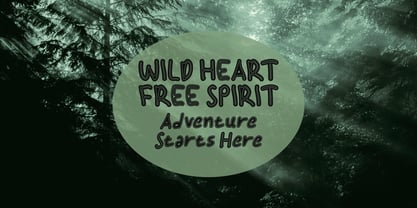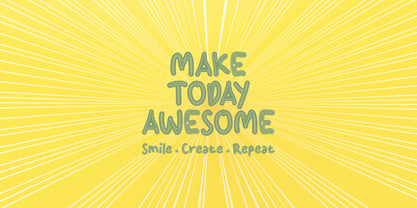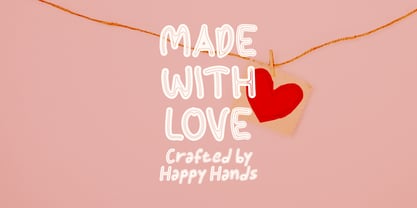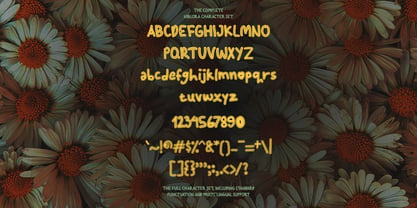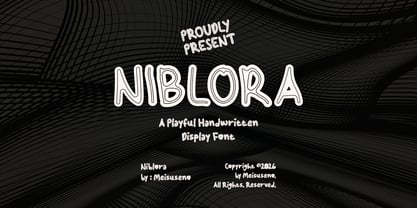
Niblora
by Mei Suseno
The Niblora Font Family was designed by Mei Suseno and published by Mei Suseno. Niblora contains 2 styles and family package options. More about this family
Niblora is a playful hand-drawn display font with bold outlined letterforms and a charming vintage personality. Designed to bring warmth, creativity, and fun into every project, this font features organic curves and a handcrafted feel that instantly catches attention. Its unique bubble-style outline makes it perfect for creating eye-catching headlines while maintaining a friendly and approachable look.
Whether you're designing logos, branding, packaging, posters, social media graphics, children's products, stickers, apparel, greeting cards, book covers, or creative merchandise, Niblora adds a joyful retro touch that makes every design stand out. Inspired by nostalgic hand-lettering and modern vintage aesthetics, this font is ideal for designers looking to create bold, cheerful, and memorable typography.
Bring your ideas to life with Niblora—a fun display font made for colorful, creative, and expressive designs.